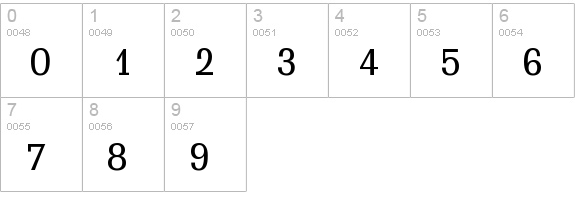
ScoutLightDB Normal Font Details
ScoutLightDB Normal is the standard, neutral variant in the ScoutLightDB typeface family \xE2\x80\x94 well suited to general body text, paragraphs, and standard typographic work.
ScoutLightDB Normal font is a versatile and stylish typeface that adds a touch of elegance and professionalism to any design project. Its clean lines and balanced proportions make it the perfect choice for both digital and print applications. With its wide range of weights and styles, ScoutLightDB Normal font offers endless possibilities for creating eye-catching headlines, stylish logos, and captivating typography. What sets this font apart is not only its stunning design, but also the fact that it is available for free. Yes, you read that right! ScoutLightDB Normal font can be freely downloaded at FontsMarket.com, allowing designers and creatives to enhance their work without breaking the bank. Whether you're a seasoned professional or just starting out in the world of design, ScoutLightDB Normal font is a must-have in your font library. Its versatility, legibility, and timeless appeal make it suitable for a wide range of projects, from branding and marketing materials to websites and social media graphics. So why wait? Don't miss out on the opportunity to add ScoutLightDB Normal font to your collection. Visit FontsMarket.com today and freely download this exceptional typeface that will elevate your designs to new heights.